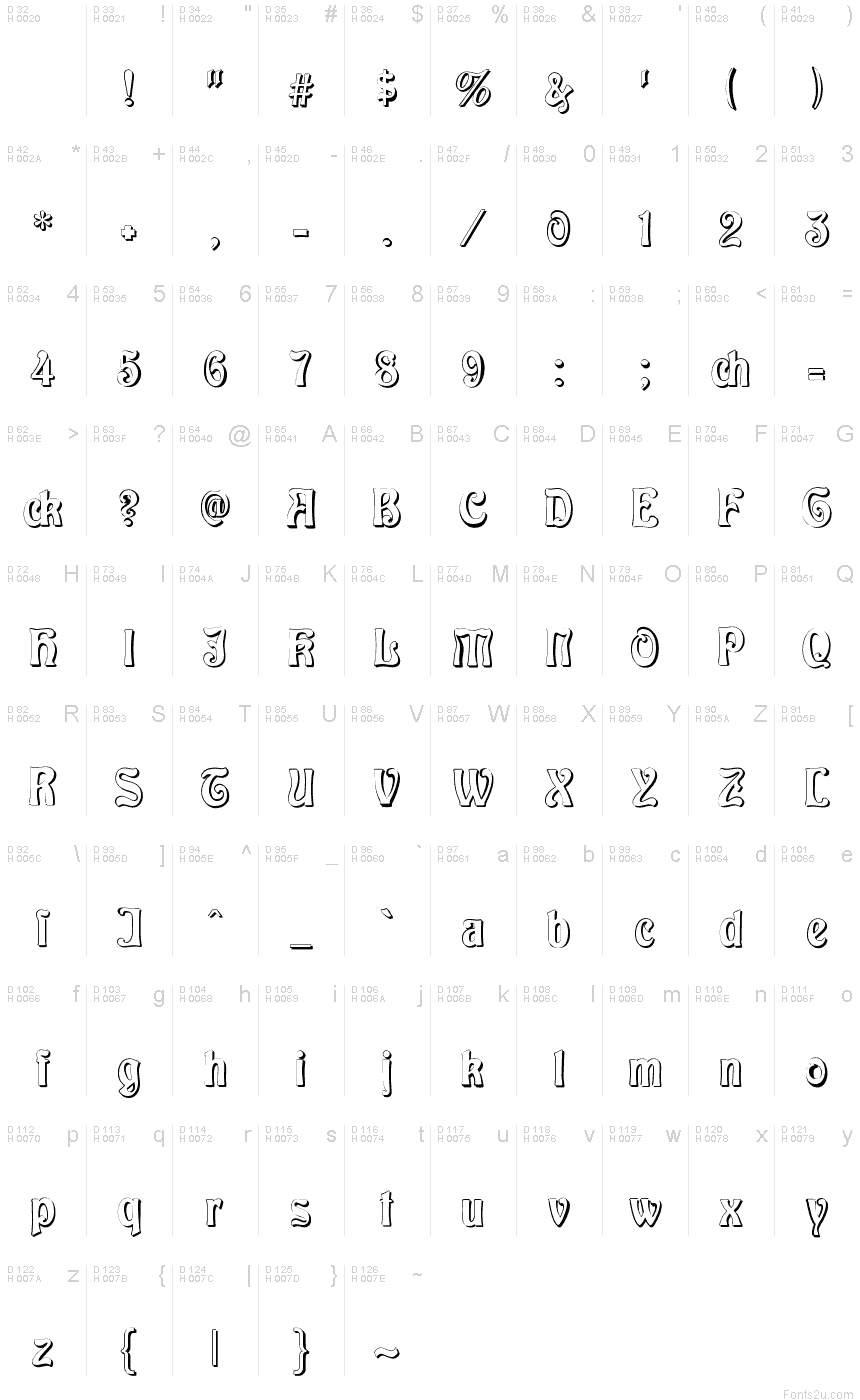
Baldur Shadow
Baldur Shadow font by Typographer Mediengestaltung is a free retro display font with puffy, hand-drawn shapes and a clean offset shadow that reads like inked lettering lifted off the page. The bold rhythm and roomy counters keep it playful rather than messy, so it stays legible even when you crank the size. It’s got that 70s sign-paint vibe—soft, friendly, and a little loud.
Using Baldur Shadow, you’ll get instant punch on posters, diner-style menus, arcade flyers, kids’ party invites, sticker sheets, packaging labels, and album cover art. This free font shines when you give it breathing room; try it big for titles and pair it with a plain sans like Inter or Helvetica for the supporting text.